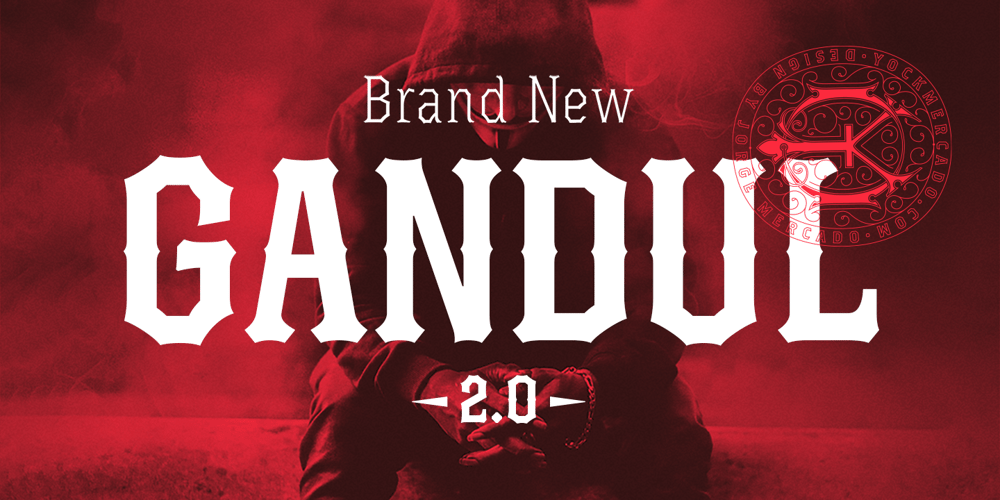
Gandul Font Family was designed by Jorge Mercado and published by Yock Mercado. Gandul contains 10 styles and family package options. Gandul is inspired by the old american typography and also in the “gandul” lifestyle, that means slacker in Spanish.